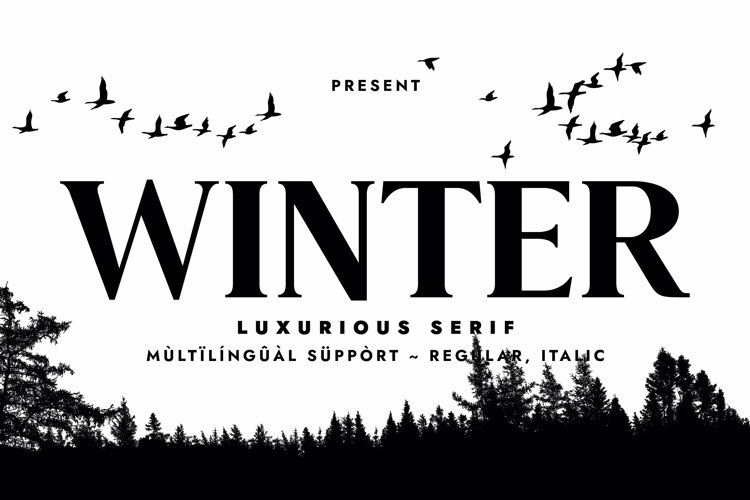
WINTER Font
๐จ Font Name: Winter by Minimalist Art Studio
๐จ Font Description: Winter is a luxurious serif with multilingual supportโideal for seasonal branding, editorial elegance, and premium packaging.
โ Complete Latin set + multilingual diacritics
โ Alternates, stylistic sets & ligatures
โ Numbers, small caps, and extended punctuation
โ Bonus italics and family styles